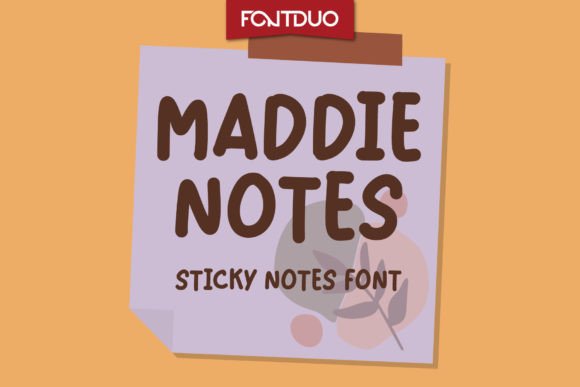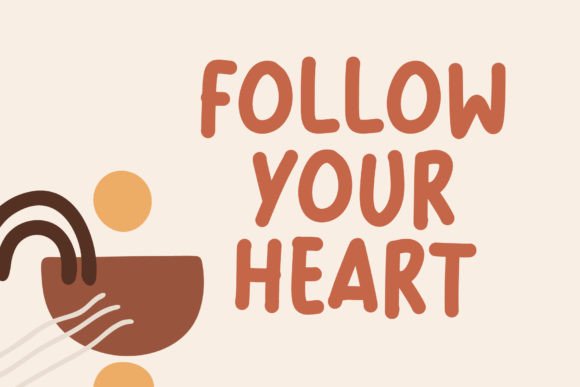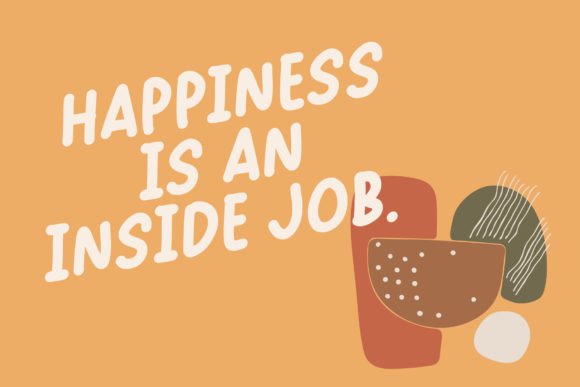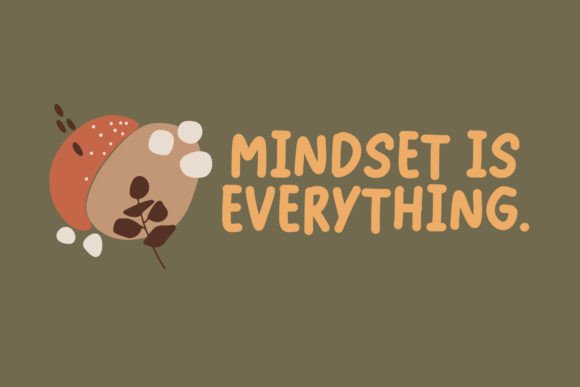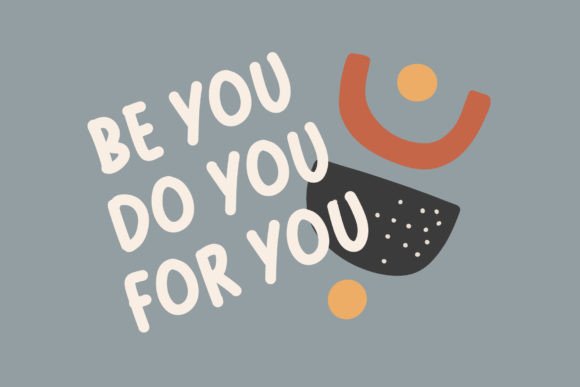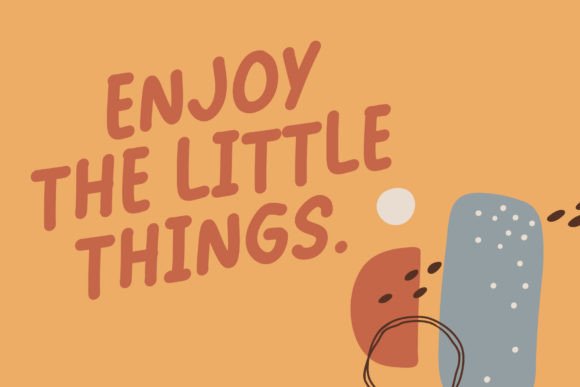
Maddie Notes Font
A Bold and Playful Script
Maddie Notes is a bold handwritten font that feels lively and personal. Each letter has thick, smooth lines and a natural flow that makes your text stand out. The style feels warm and friendly, perfect for projects that need a fun and inviting touch.
This font combines the relaxed feel of handwriting with a strong, confident look. Whether you’re working on crafts or branding, Maddie Notes brings energy to every design.
Perfect for Creative Projects
Maddie Notes is a versatile choice for many design ideas. You can use it for greeting cards, planners, and journals. It also works beautifully on social media graphics, blog headers, and product packaging.
The bold style makes it easy to grab attention. It’s great for kids’ materials, DIY projects, or any design where you want a bright, cheerful mood.
The font includes uppercase and lowercase letters, numbers, and punctuation marks. It also offers ligatures that help your text flow naturally. These details give you everything you need to create layouts that look complete and professional.
Clear and Easy to Read
Even though Maddie Notes has a playful feel, it remains clear and easy to read. The consistent spacing and clean shapes keep your text neat and organized. This makes the font perfect for large headlines and smaller details like labels or tags.
Many designers like to pair Maddie Notes with simple sans-serif fonts. This combination creates contrast and keeps your design fresh. Use Maddie Notes for titles and the sans-serif for body text. This helps guide the reader’s eye and makes your layout easy to follow.
Tips for Great Results
To highlight Maddie Notes, use light backgrounds and soft colors. Neutral tones or pastels work well to keep your design balanced.
For crafts and kids’ projects, try adding small doodles or playful icons. These touches match the font’s bold, cheerful style. When designing social media graphics, keep your layout simple so the lettering stands out.
Think about the mood you want to share. Maddie Notes is perfect for projects that should feel joyful, authentic, and personal.
Maddie Notes is more than just a bold handwritten script. It’s a creative tool that transforms simple text into something special. Its confident lines and playful look make every project feel fresh and welcoming.
Adding Maddie Notes to your font library gives you a reliable choice for all kinds of creative work. From journals and crafts to branding and social media posts, this font adapts easily.